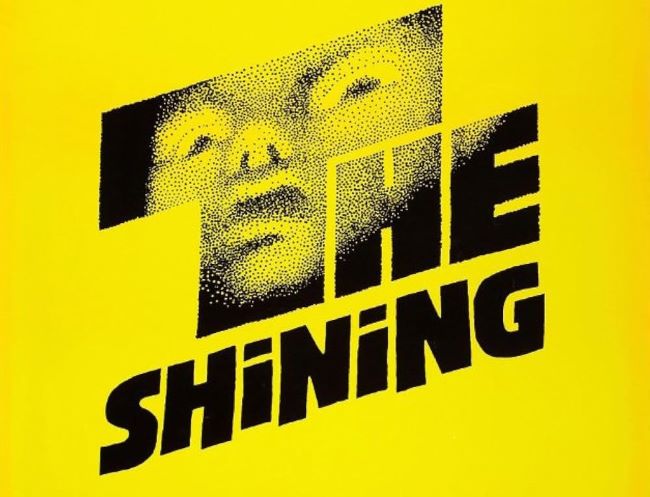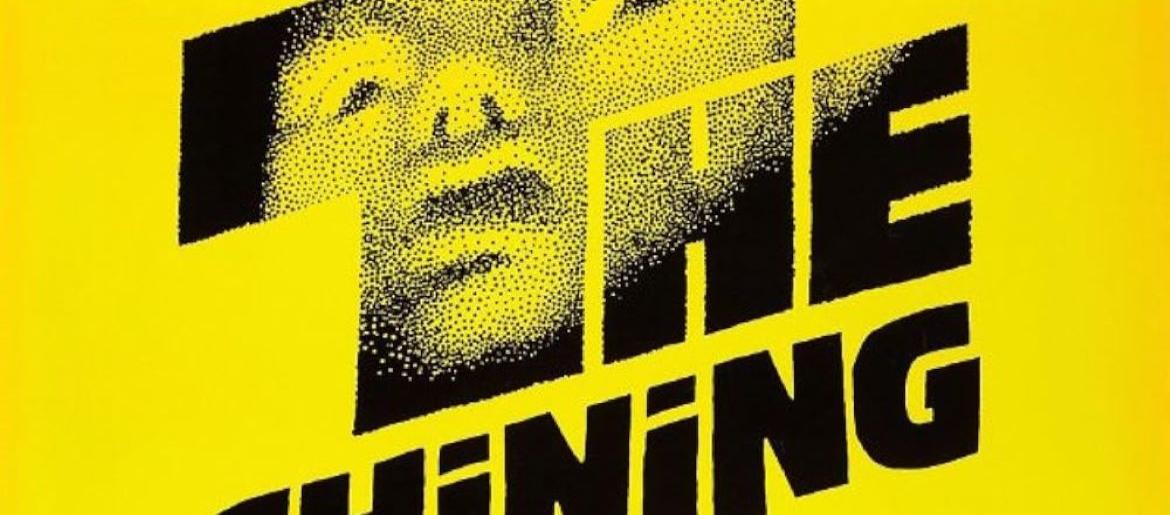
The Shining Font
The Shining font stands as one of horror cinema’s most iconic and unsettling typefaces, directly influenced by Stanley Kubrick’s 1980 psychological thriller. The typography effectively captures the film’s disturbing ambiance and mental deterioration themes. The geometric, bold letterforms featured in the opening credits immediately establish an atmosphere of foreboding, loneliness, and tension.
While the film’s original typography was custom-crafted, numerous typefaces successfully replicate its eerie aesthetic. Options such as Shining NFI, Futura Extra Bold, and Gill Sans Bold are commonly cited as faithful approximations. Design professionals regularly employ these alternatives when aiming to reproduce the disconcerting title treatment from Kubrick’s masterwork.